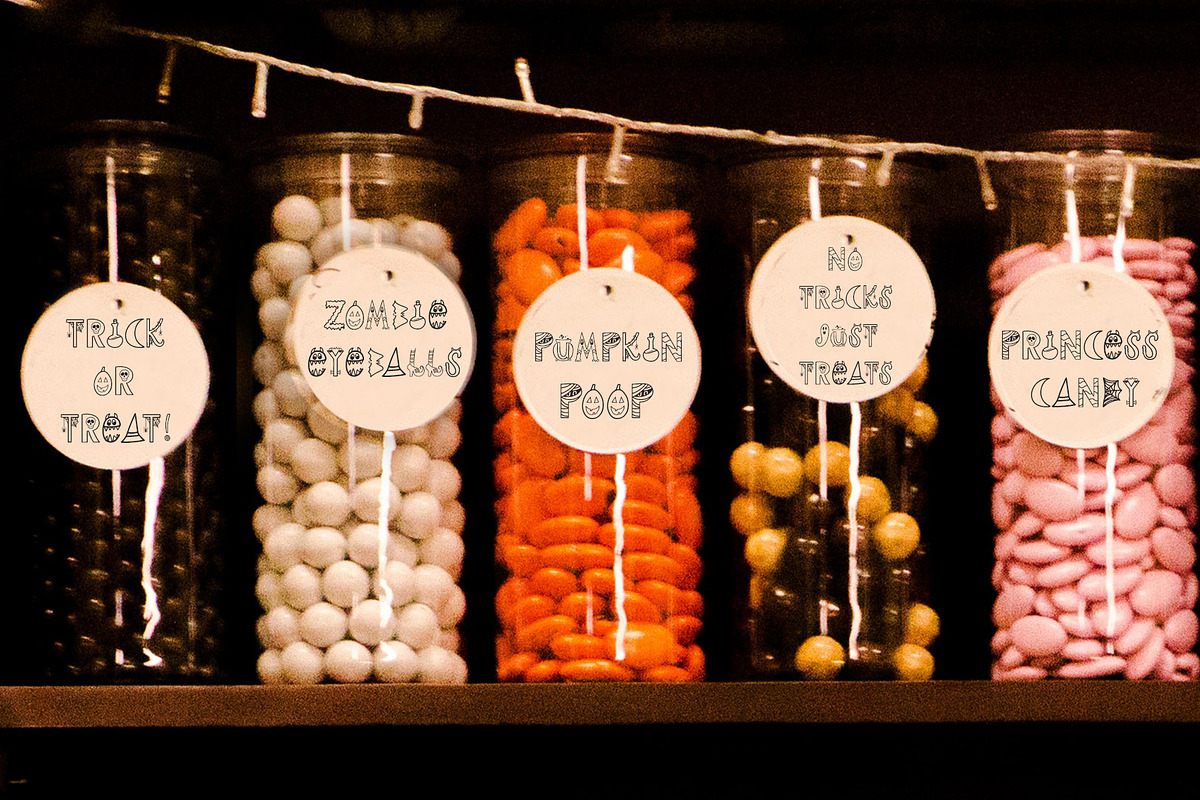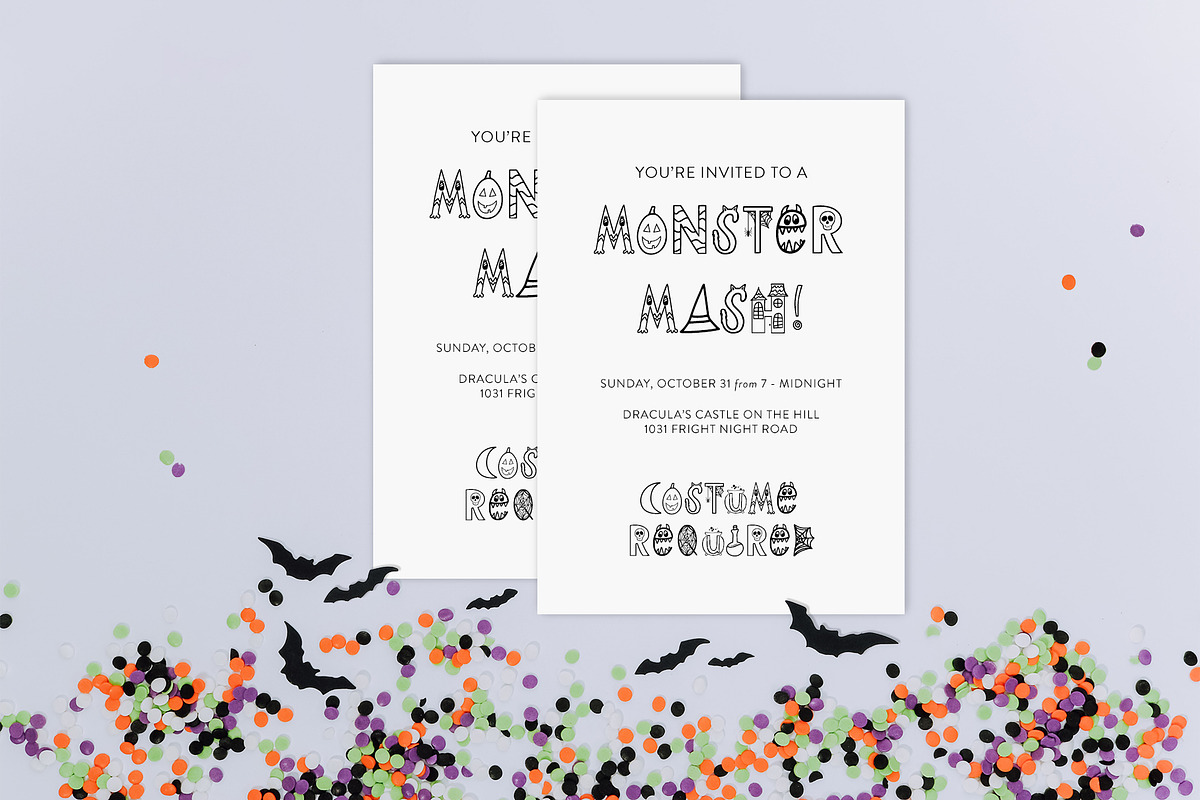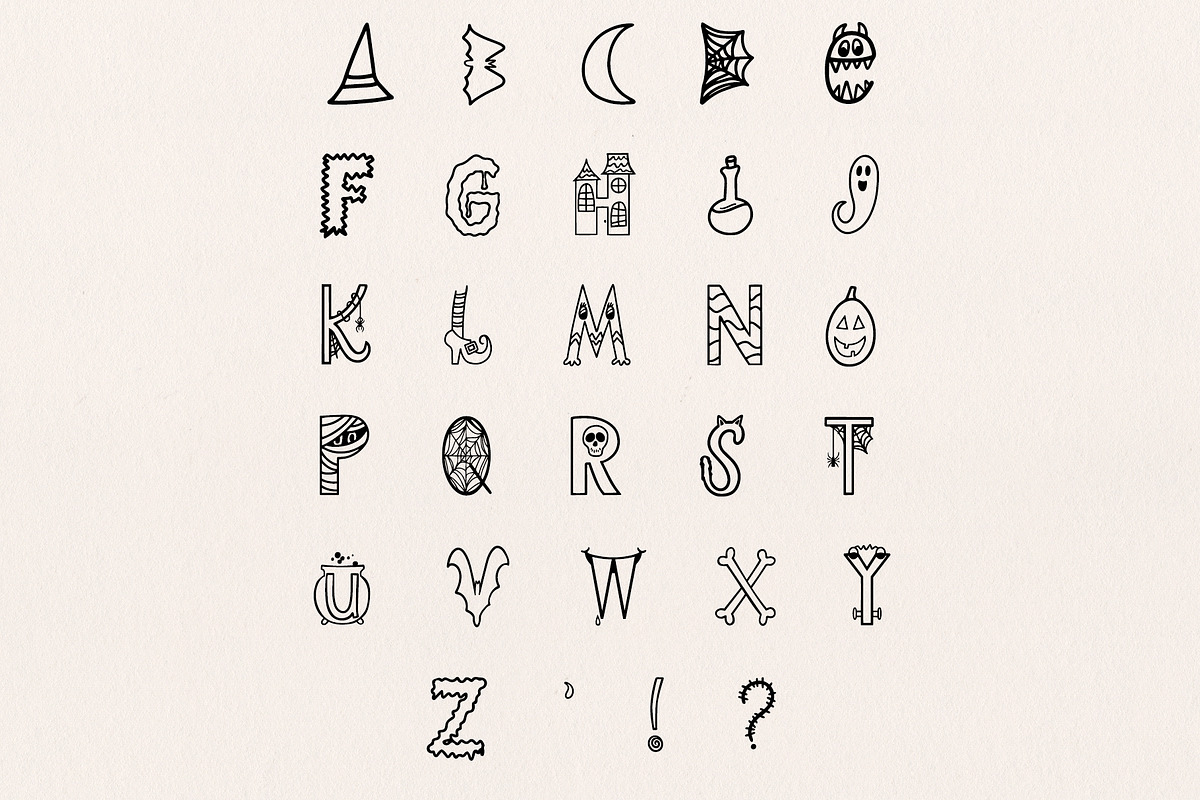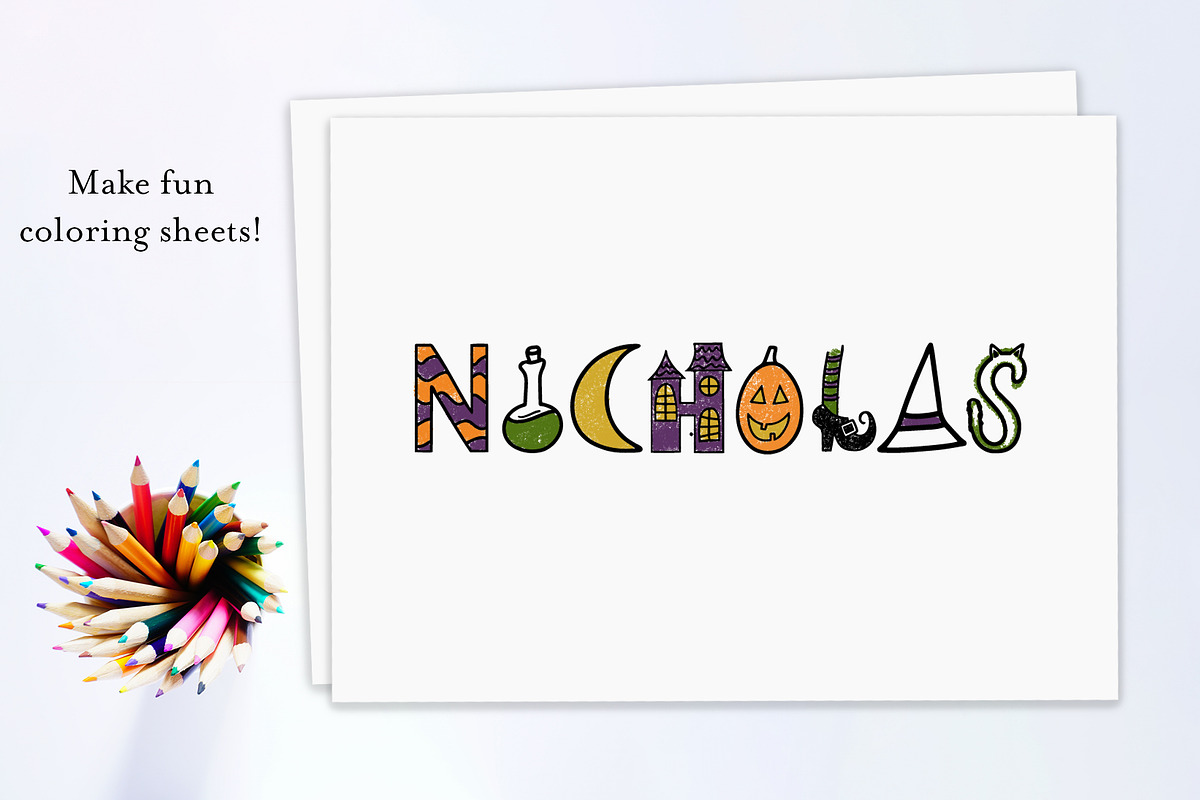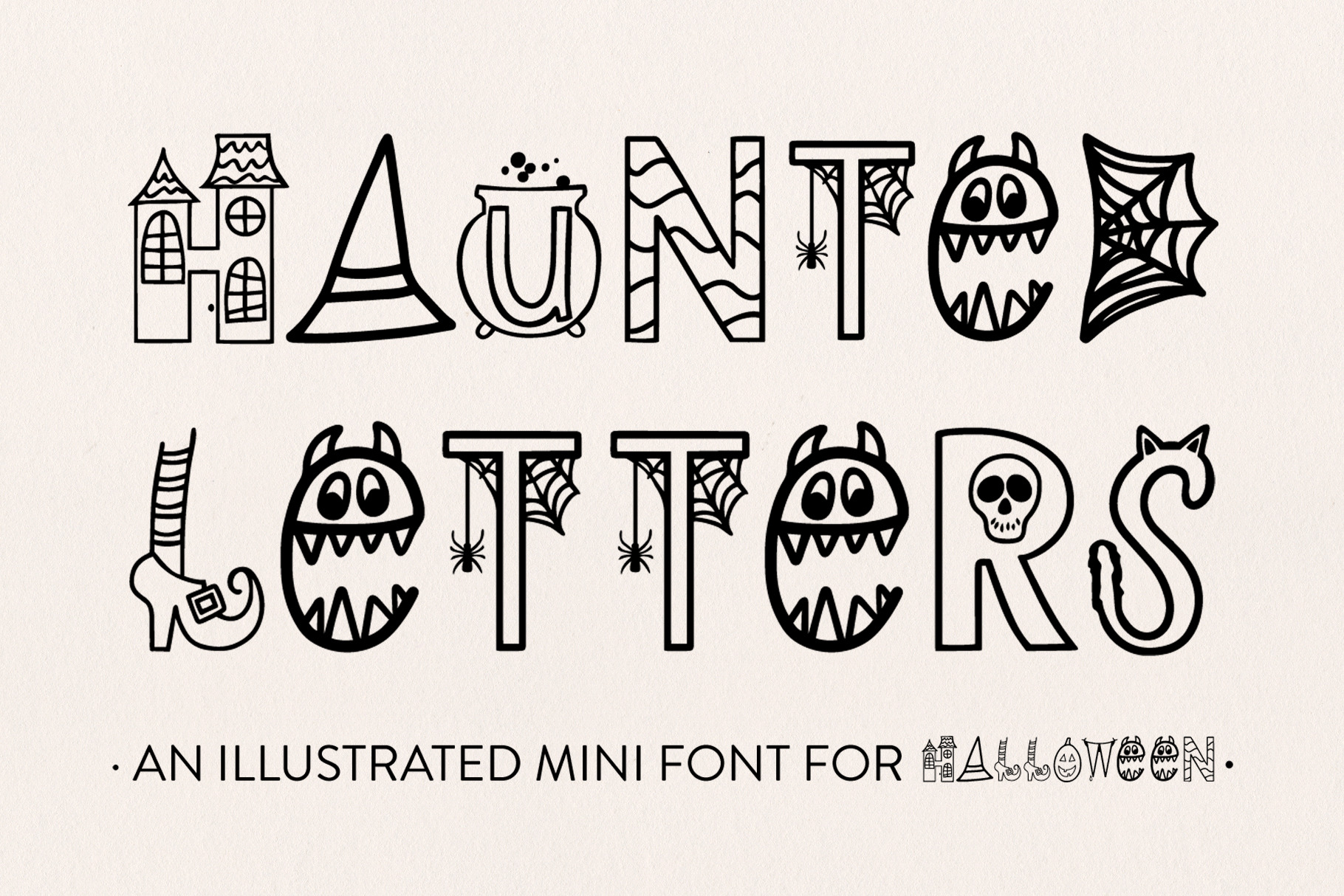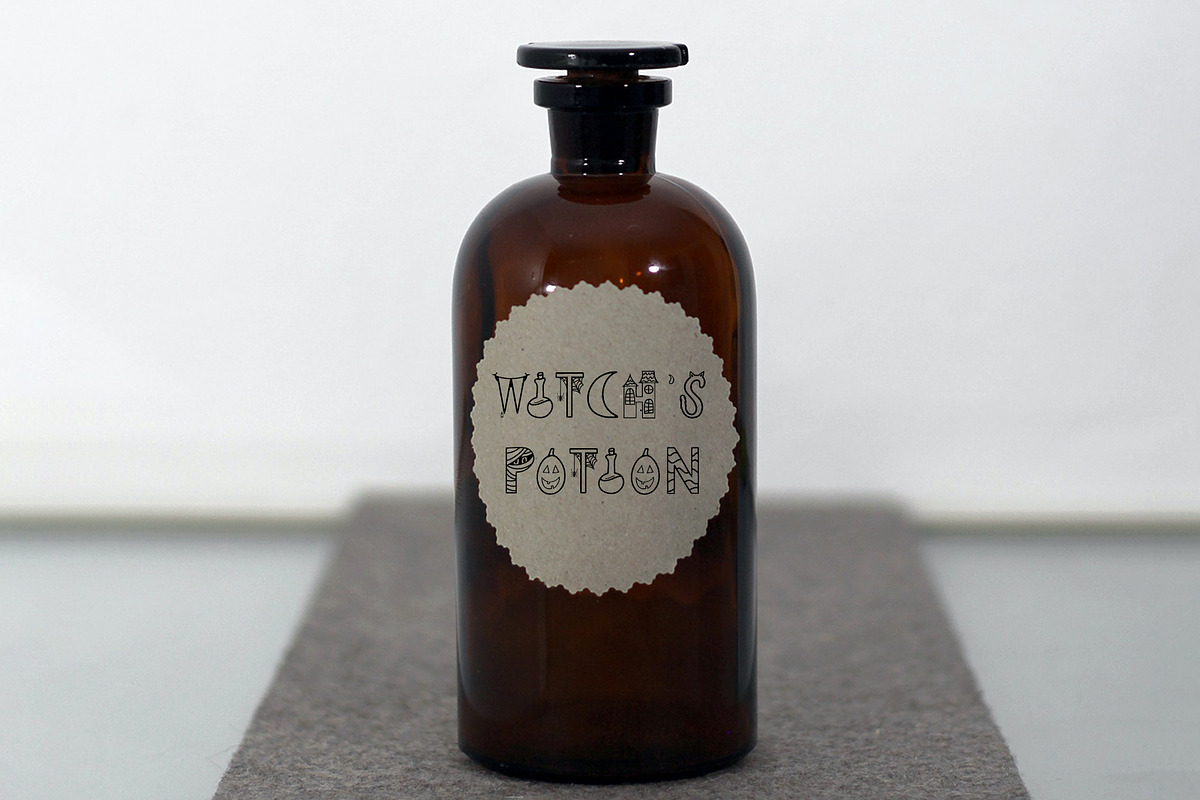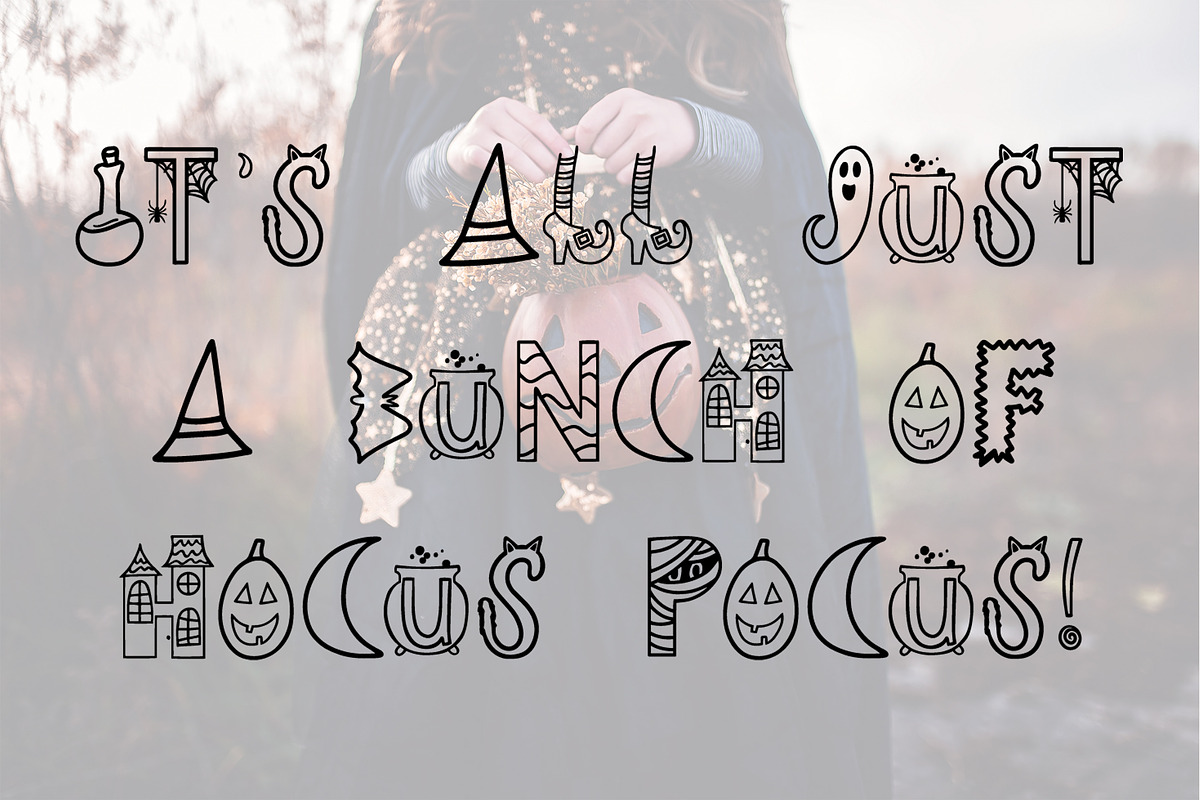
Haunted Letters - Halloween Font
Haunted Letters is a fun illustrated mini font celebrating Halloween and spooky things!
This font would be great used on invitations, candy tags or stickers, envelopes, and for coloring sheets.